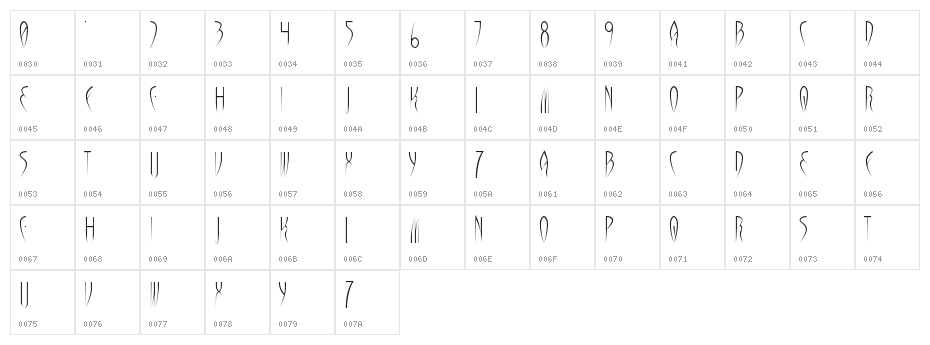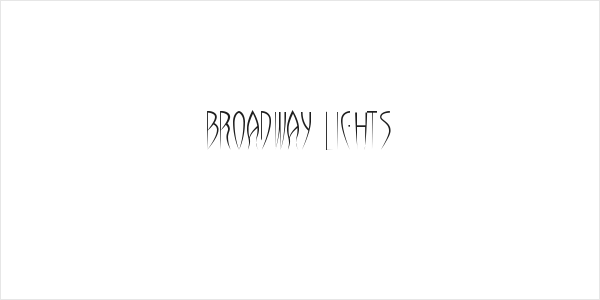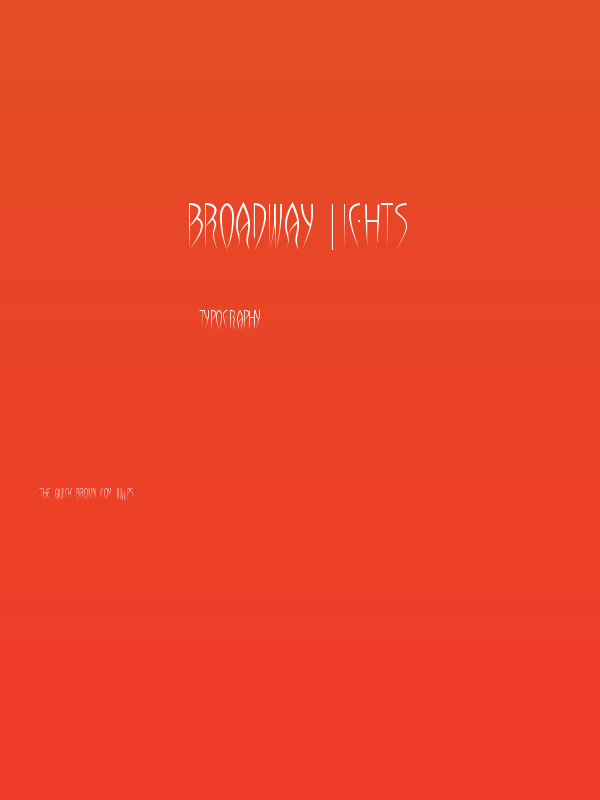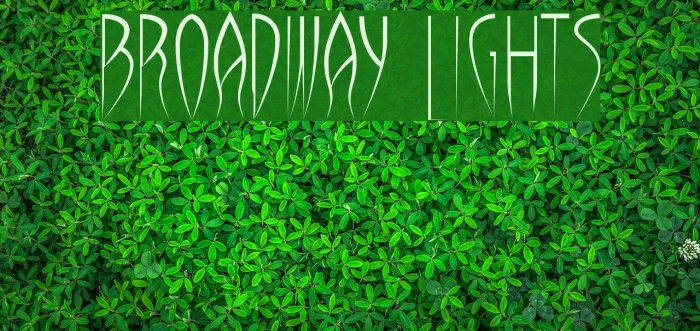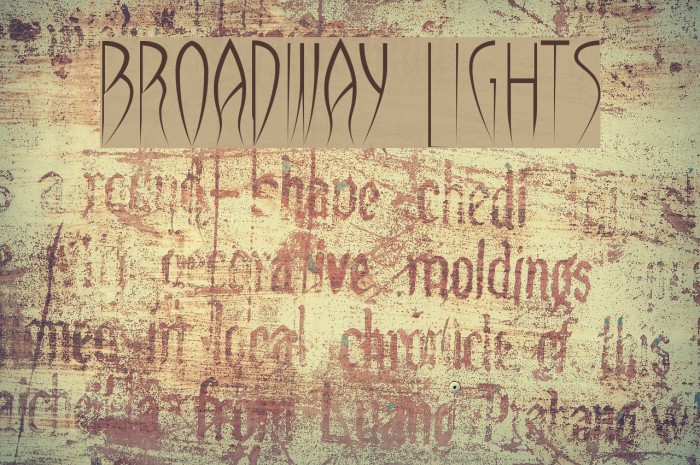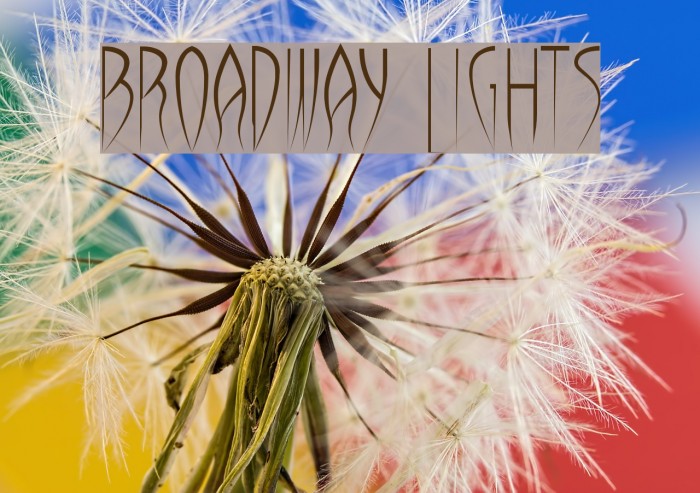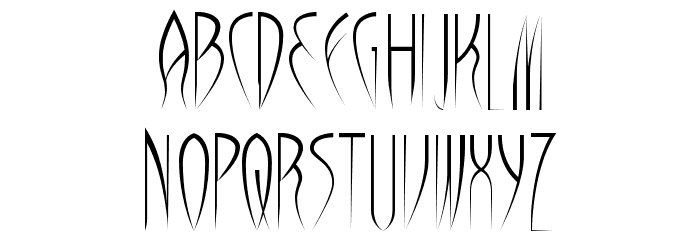
Broadway lights Font
✎ Art Deco
Broadway lights Description
This font features a distinctively sharp and elongated design, with characters that taper to fine points, creating a dramatic and theatrical appearance. The uppercase letters are particularly striking, with a high contrast between thick and thin strokes, giving them a sense of elegance and flair. The lowercase letters maintain this theme, offering a cohesive look throughout the typeface. The numerals are equally stylized, ensuring consistency across all characters. This font's unique style is reminiscent of Art Deco influences, making it ideal for projects that require a touch of vintage glamour.
| Categories | Art Deco |
| Width | Condensed |
| Overall Style | Vintage |
| Proposed Projects | Ideal for theatrical posters, vintage-themed branding, and elegant invitations. |